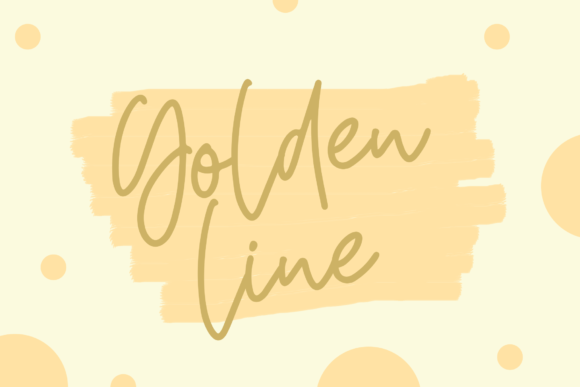
Behold, Golden Line Font, the dazzling script that dances across your screen, leaving a trail of elegance and sophistication. Crafted with meticulous care and intricate detailing, this font is a masterpiece that will elevate your designs to new heights. Its graceful curves and delicate strokes evoke a sense of timeless charm, making it the perfect choice for any project that demands a touch of class.
As a script font, Golden Line possesses a natural, handwritten quality that adds a personal touch to your work. Its smooth flow and gentle variations in thickness create a sense of authenticity that is sure to captivate your audience. Whether you're creating invitations, greeting cards, branding materials, or any other design project, Golden Line will add a touch of magic that will leave a lasting impression.
Immerse yourself in the world of Golden Line and discover the endless possibilities it holds. Use it to craft heartfelt messages, design stunning logos, create eye-catching social media posts, or add a personal touch to your digital designs. The possibilities are limitless, and the results are always breathtaking.